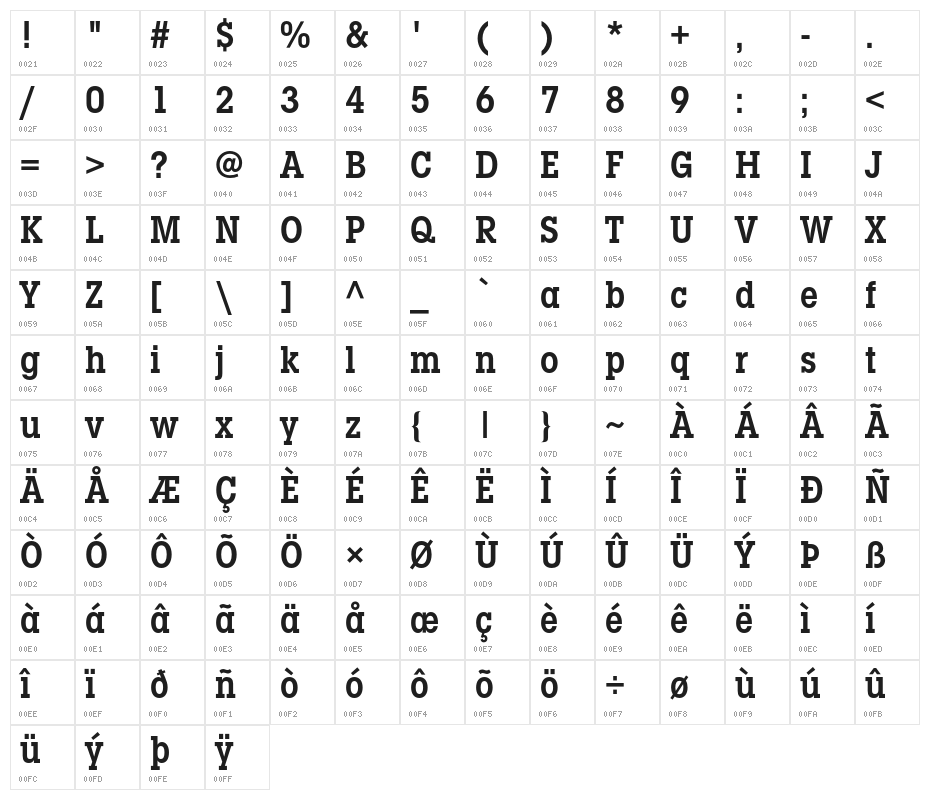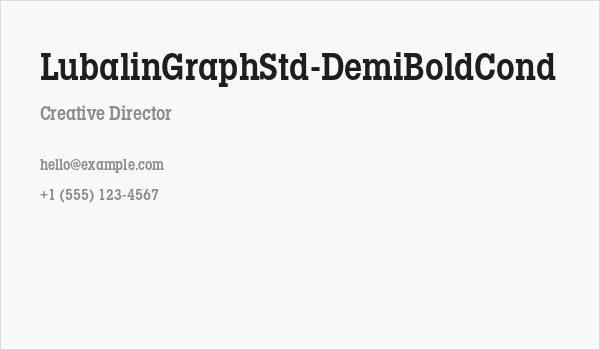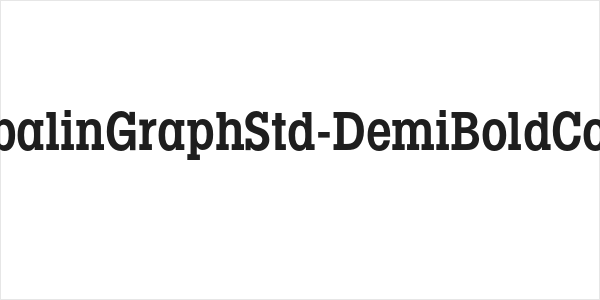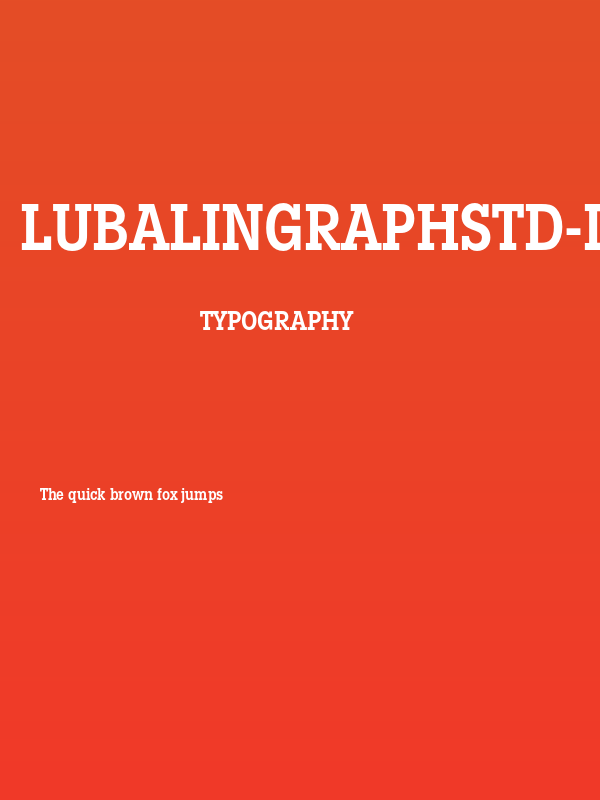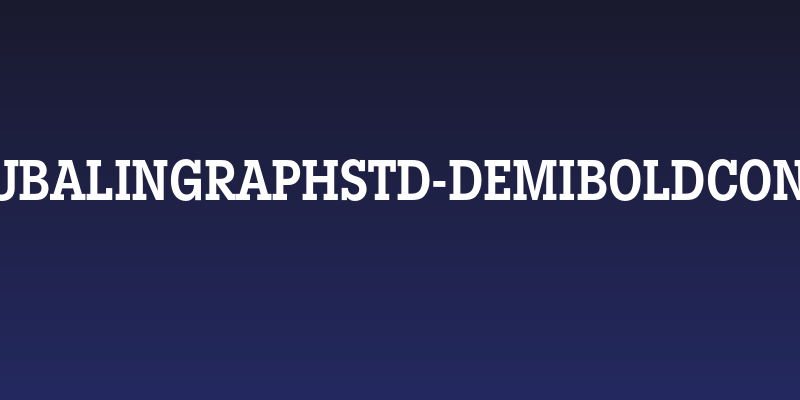
LubalinGraphStd-DemiBoldCond Font
LubalinGraphStd-DemiBoldCond Description
This font exhibits a robust and bold presence with its slab serif characteristics. The letters are well-defined with thick strokes and squared-off serifs, giving it a strong and authoritative look. The uppercase and lowercase letters maintain a consistent weight, ensuring readability and uniformity across different text sizes. The numerals are clear and distinct, matching the boldness of the alphabetic characters. Special characters are also well-integrated, maintaining the overall aesthetic of the font. The condensed width allows for efficient use of space, making it suitable for headlines and titles where impact is essential.
Proposed ProjectsIdeal for branding, advertising, posters, and editorial design where a strong, authoritative presence is required.